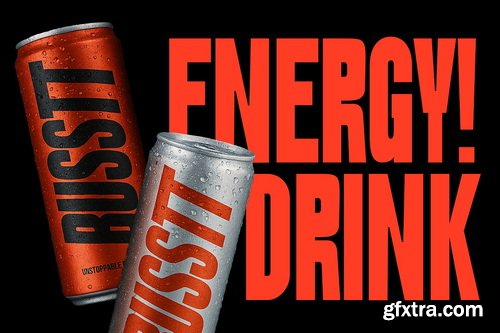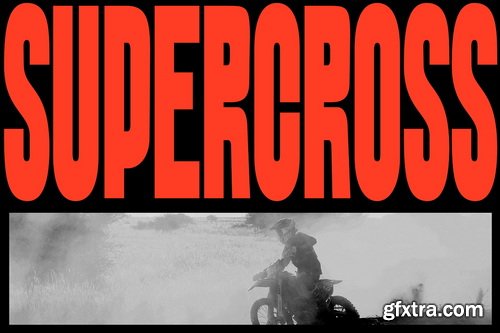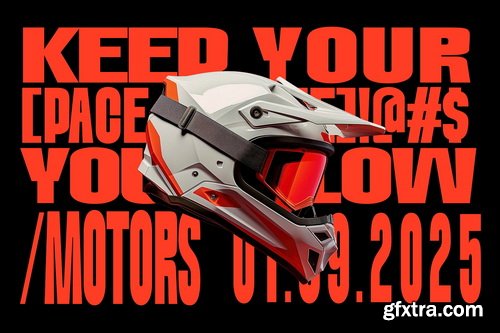
CreativeMarket - Dx Playhigh 21 Font
- DX Playhigh – The Ultimate Variable Display Font DX Playhigh is a bold and dynamic variable sans-serif display font designed to make a statement. Crafted by Dirtyline Studio, this font blends strength, versatility, and energy — perfect for designers who want their typography to stand tall and command attention. With 21 styles ranging from Condensed to Ultra Expanded, DX Playhigh gives you total creative freedom. Its Variable Font technology lets you seamlessly adjust the width and style to match your visual needs — whether you’re designing bold headlines, impactful posters, expressive logos, or energetic branding materials.